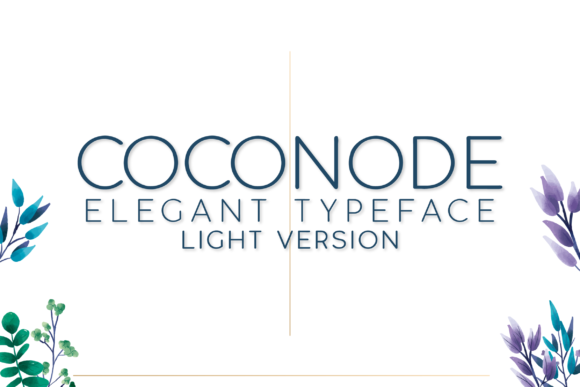
Journey into the realm of typography and discover the enchanting Coconode Light Font, a sans serif masterpiece crafted by the visionary minds at Huntype. This font is a symphony of elegance, simplicity, and readability, designed to elevate your creative projects to new heights.
Coconode Light's inherent charm lies in its ability to effortlessly blend classic aesthetics with a contemporary touch. Its clean lines and minimalist design exude a timeless sophistication, while its subtle curves and generous x-height inject a touch of warmth and approachability.
Whether you're a seasoned designer or just starting your typographic journey, Coconode Light is your perfect companion. Its versatile nature makes it suitable for a wide range of applications, from eye-catching headlines to captivating body text. Let your words dance across the screen with a grace and finesse that will leave your audience spellbound.
Coconode Light's adaptability extends beyond its diverse applications. Its three weights—Light, Regular, and Thin—allow you to tailor your designs to suit any mood or aesthetic. From the airy lightness of Coconode Light Thin to the confident boldness of Coconode Light Regular, this font family offers a spectrum of options to match your creative vision.
With Coconode Light, you'll never be constrained by creative boundaries. Its inherent readability ensures that your message will be conveyed with clarity and impact, while its modernistic design adds a touch of sophistication that sets your work apart. Embrace the limitless possibilities of Coconode Light and watch your designs blossom into masterpieces.
Unleash your creativity and let Coconode Light Font guide you to typographic greatness. Experience the magic of this captivating sans serif font today and elevate your designs to new heights of brilliance.